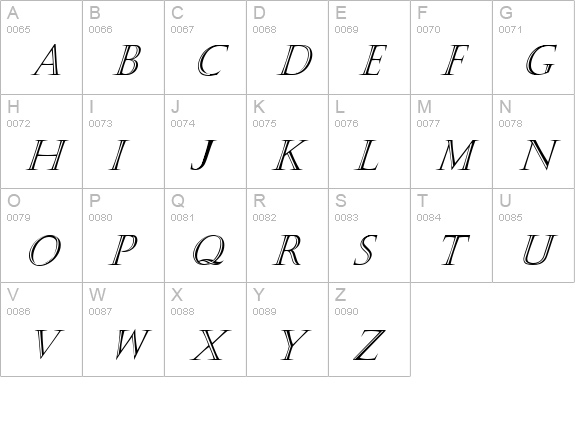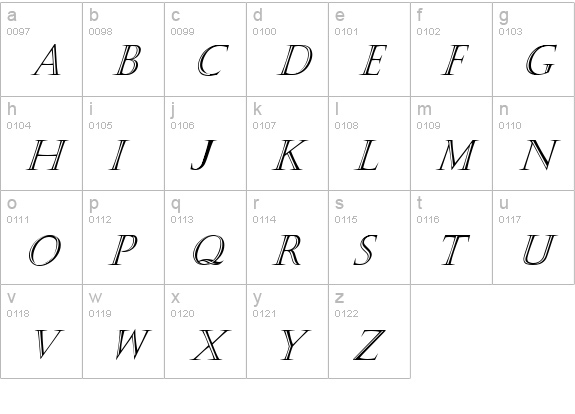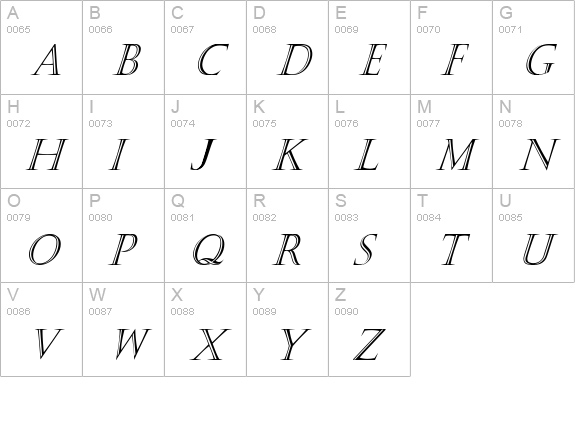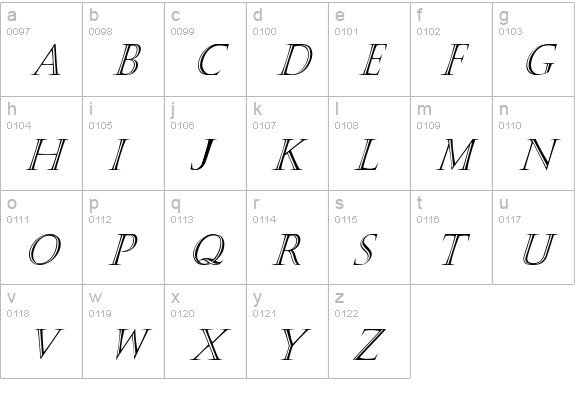
Kastellar Italic Font Details
Kastellar Italic is a distinctive, italic variant in the Kastellar typeface family \xE2\x80\x94 well suited to design and typography projects.
Kastellar Italic is a breathtakingly elegant and sophisticated font that exudes a sense of timeless beauty. With its delicate curves and graceful strokes, this font captivates the eye and adds a touch of class to any design project. Designed with meticulous attention to detail, Kastellar Italic strikes the perfect balance between tradition and modernity. Its unique Italic style gives it a distinctive flair, making it the perfect choice for projects that require a touch of creativity and individuality. One of the most remarkable aspects of Kastellar Italic is that it is available for free. Yes, you read that right - this exquisite font can be yours without spending a single penny. Thanks to FontsMarket.com, Kastellar Italic is freely available for download, giving designers and enthusiasts the opportunity to enhance their projects with this remarkable typeface. Whether you are working on a logo design, a wedding invitation, or a website layout, Kastellar Italic will elevate your design to new heights. Its versatility allows it to adapt to various styles and themes, making it a valuable asset in any designer's toolkit. The attention to detail in Kastellar Italic is truly remarkable. The carefully crafted letterforms flow seamlessly, creating a harmonious and visually pleasing aesthetic. The subtle variations in stroke width add depth and dimension to the characters, resulting in a truly unique and captivating typeface. With Kastellar Italic, your designs will stand out from the crowd. Its timeless appeal and classic charm will evoke a sense of sophistication and refinement, making it the perfect choice for projects that require a touch of elegance. Don't miss out on the opportunity to enhance your designs with this exceptional font. Visit FontsMarket.com today and download Kastellar Italic for free. Elevate your design projects to new heights with this stunning typeface and let your creativity shine.